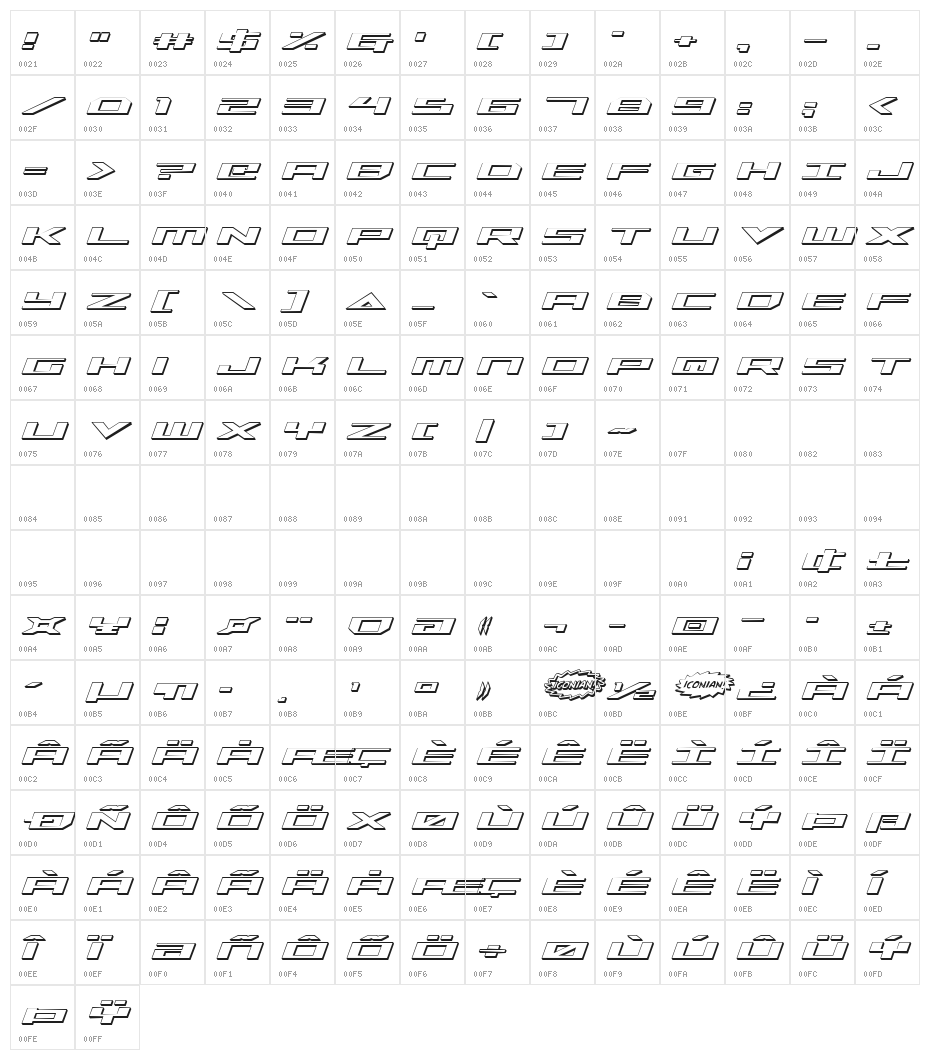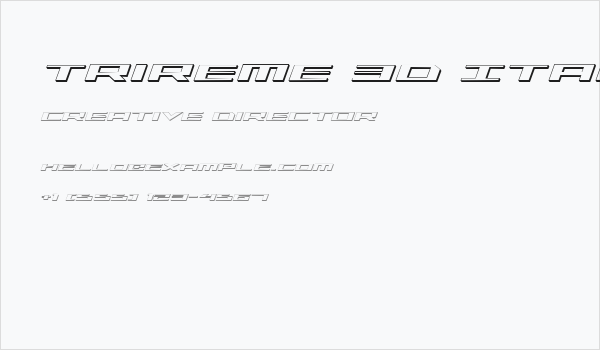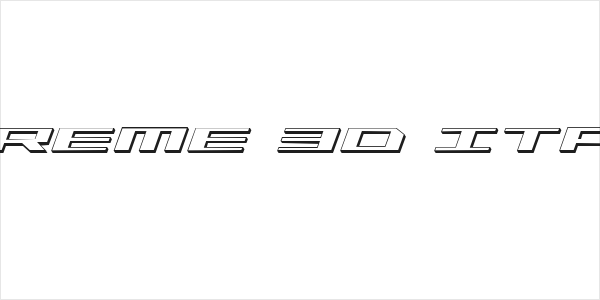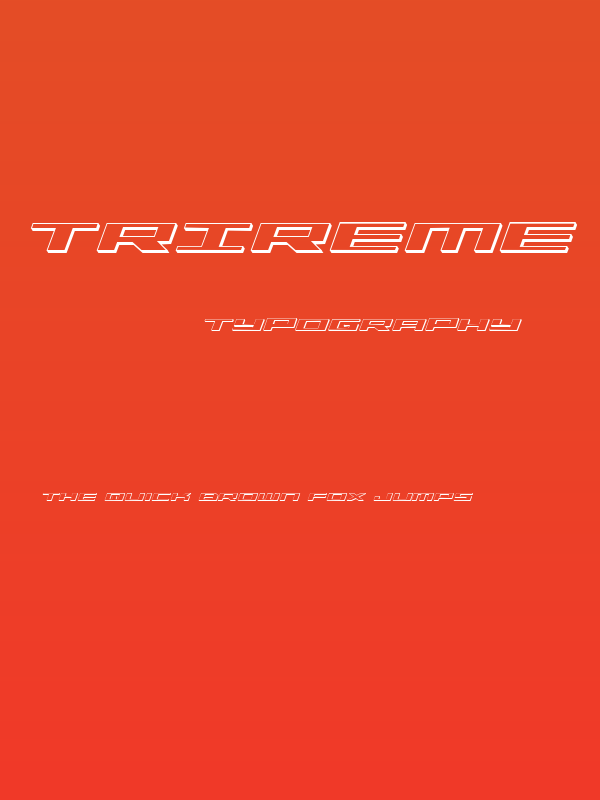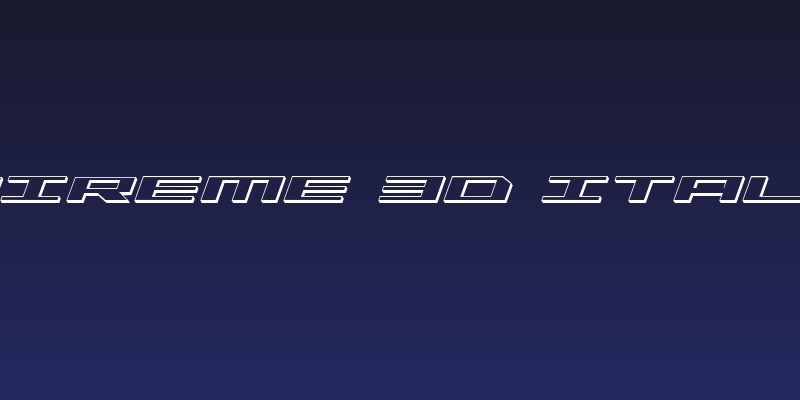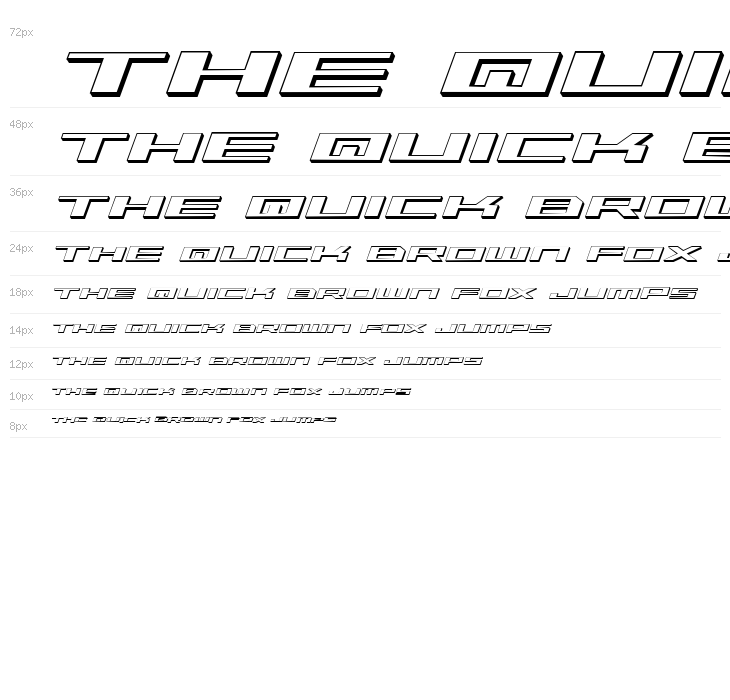
Trireme 3D Italic Font
Trireme 3D Italic Description
This font features a dynamic and futuristic design, characterized by its three-dimensional appearance and italicized slant. The letters are outlined with a bold, geometric structure, giving them a sense of depth and movement. The angular shapes and clean lines contribute to a modern aesthetic, making it stand out in digital and print media. The uppercase and lowercase letters maintain a consistent style, while the numerals and special characters are designed to complement the overall look. This font is ideal for projects that require a contemporary and eye-catching typeface.
| Proposed Projects | Ideal for tech-related branding, video game titles, sci-fi posters, and modern advertising. |